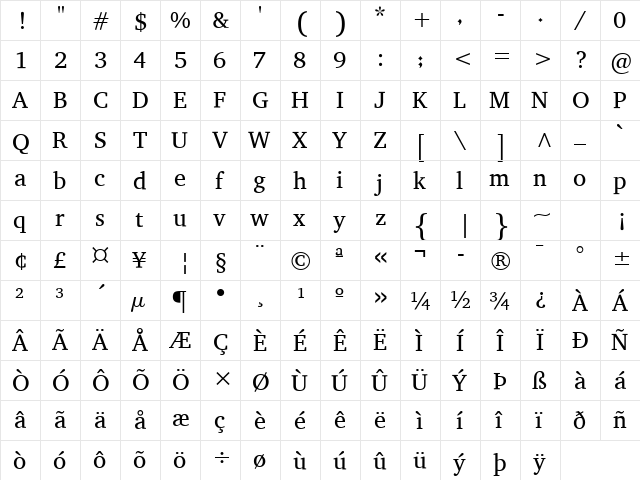
Ezra SIL SR Regular
Design Context for Ezra SIL SR Typeface
Ezra SIL SR is a composed and adaptable typeface that performs quietly and consistently across a wide range of design contexts.